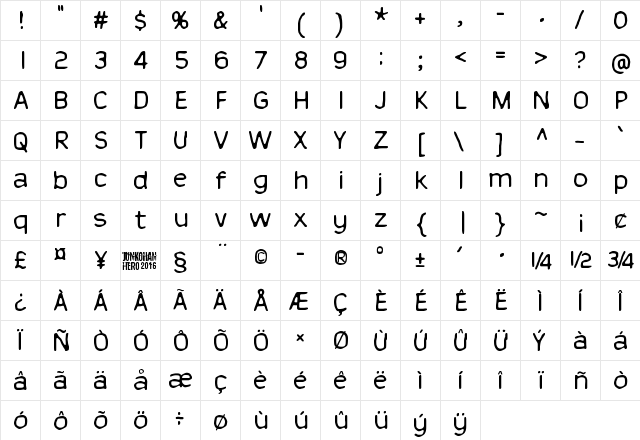
This is nu jazz Regular
Design Context for This is nu jazz Typeface
This is nu jazz is a composed and adaptable typeface that performs quietly and consistently across a wide range of design contexts.